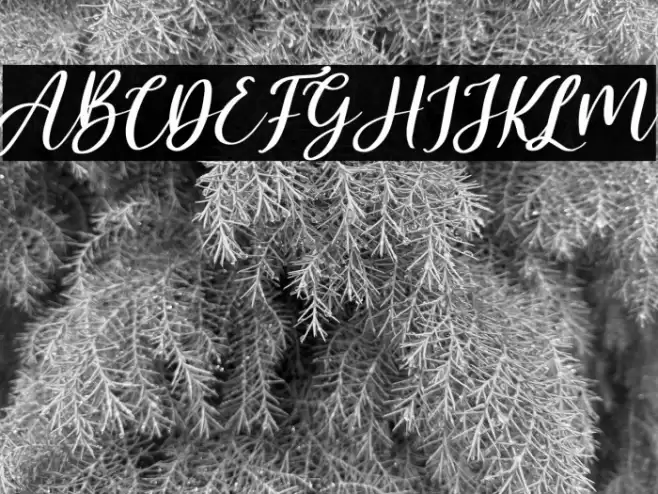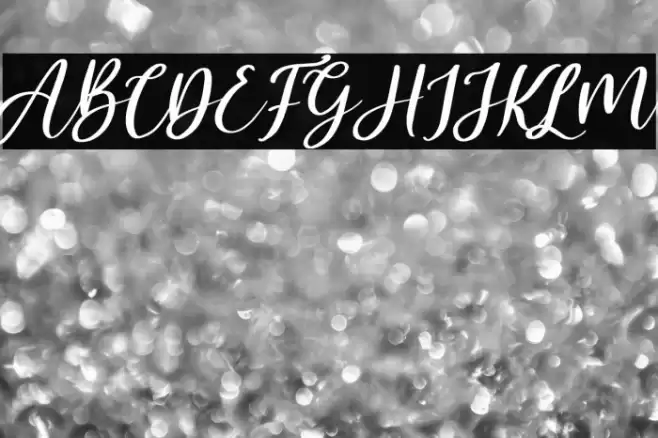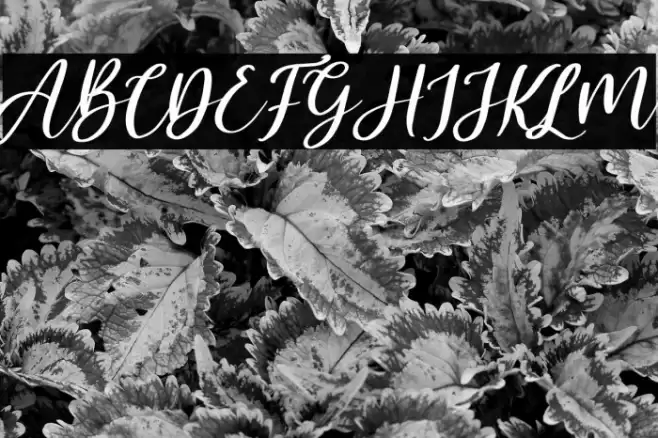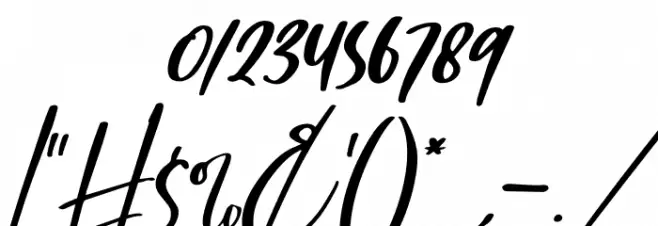
Malyska Italic Font
Malyska Italic Description
This font features a flowing, cursive style with elegant, sweeping strokes that give it a handwritten appearance. The uppercase letters are bold and expressive, while the lowercase letters maintain a consistent fluidity, enhancing its script-like quality. The numbers and special characters are designed to complement the overall aesthetic, maintaining the same graceful curves and dynamic lines. The font's italic nature adds a sense of movement and sophistication, making it suitable for projects that require a personal touch. Its artistic flair is evident in the way each letter connects seamlessly, creating a harmonious and visually appealing text flow.
A cursive, italic font with elegant, flowing strokes and a handwritten style from Uncategorized fonts.
- Font: Malyska Italic
- Proposed Projects: Ideal for wedding invitations, greeting cards, branding, and logo design.
- Use Case: Logos, Headlines, Invitations